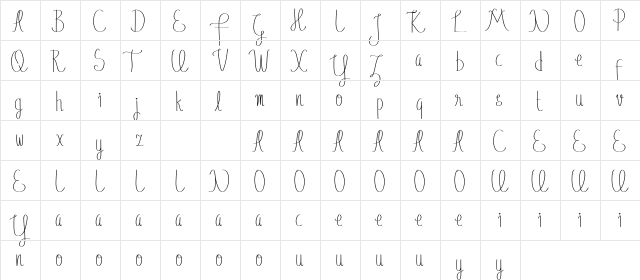
Justice Action Demo Script
| Style | Script |
| Foundry | Edric Studio |
| Designer | Widiyanti & Suci Anita |
Design Context for Justice Action Demo Typeface
Justice Action Demo brings a calligraphic fluidity to the page — its connecting strokes and expressive curves give it an unmistakably human quality.